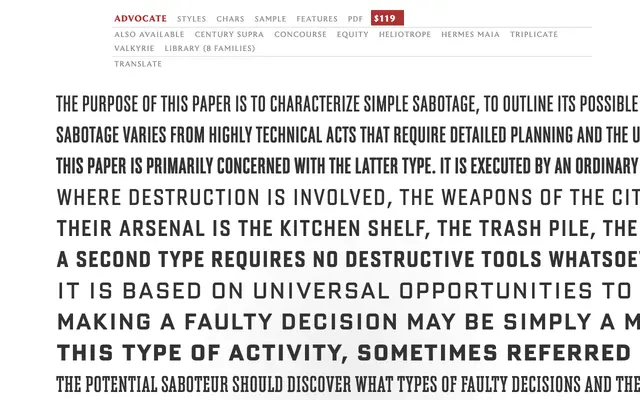
Advocate
A text serif from MB Type designed for extended reading in documents and print.
Advocate sits in MB Type's library alongside other text-focused designs such as Equity and Century Supra, suggesting a similar emphasis on legibility at body sizes. The sample copy, drawn from a wartime document, demonstrates the face's suitability for sustained prose. Details on the page are sparse, but the overall presentation positions it as a straightforward, functional text serif.
The sample text and overall presentation suggest a text-focused serif with classical proportions; without explicit classification notes on the page, the clean, readable forms point to a transitional serif design suited to body text and documents.